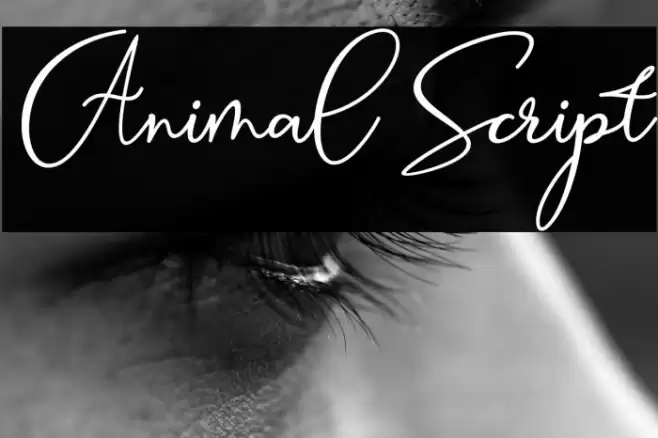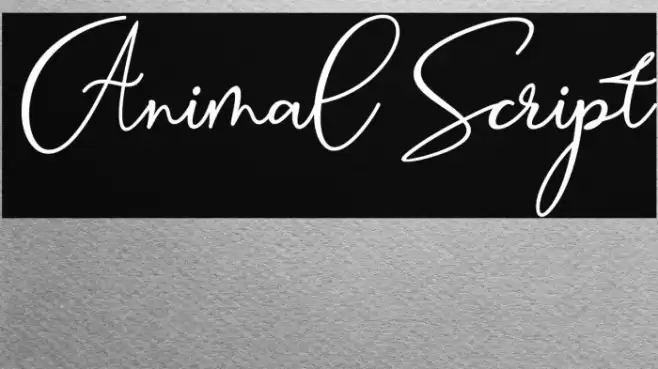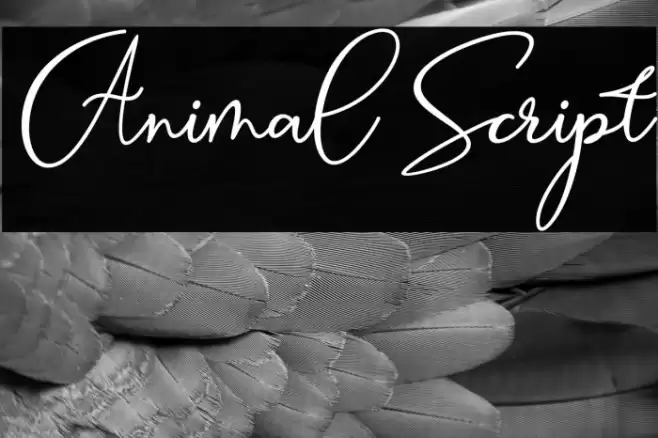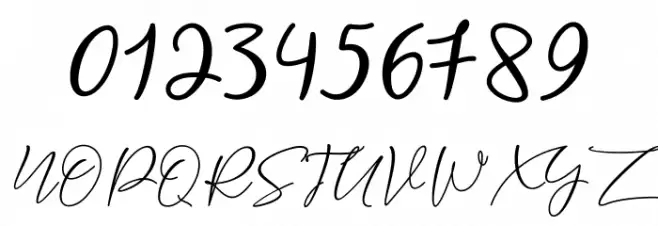
Animal Script Font
Animal Script Description
A flowing, cursive script font with elegant, sweeping strokes and a handwritten appearance. The characters are connected, featuring high ascenders and descenders, with a playful yet sophisticated style. The line weight is consistent and thin, giving it a delicate and airy feel.
Elegant, handwritten script with flowing, connected strokes from Uncategorized fonts.
- Font: Animal Script
- Proposed Projects: Wedding invitations, greeting cards, personal branding, quotes, decorative headings.
- Weight: Light
- Overall Style: Decorative, Handwritten, Elegant
- Use Case: Logos, Invitations, Decorative text, Headlines